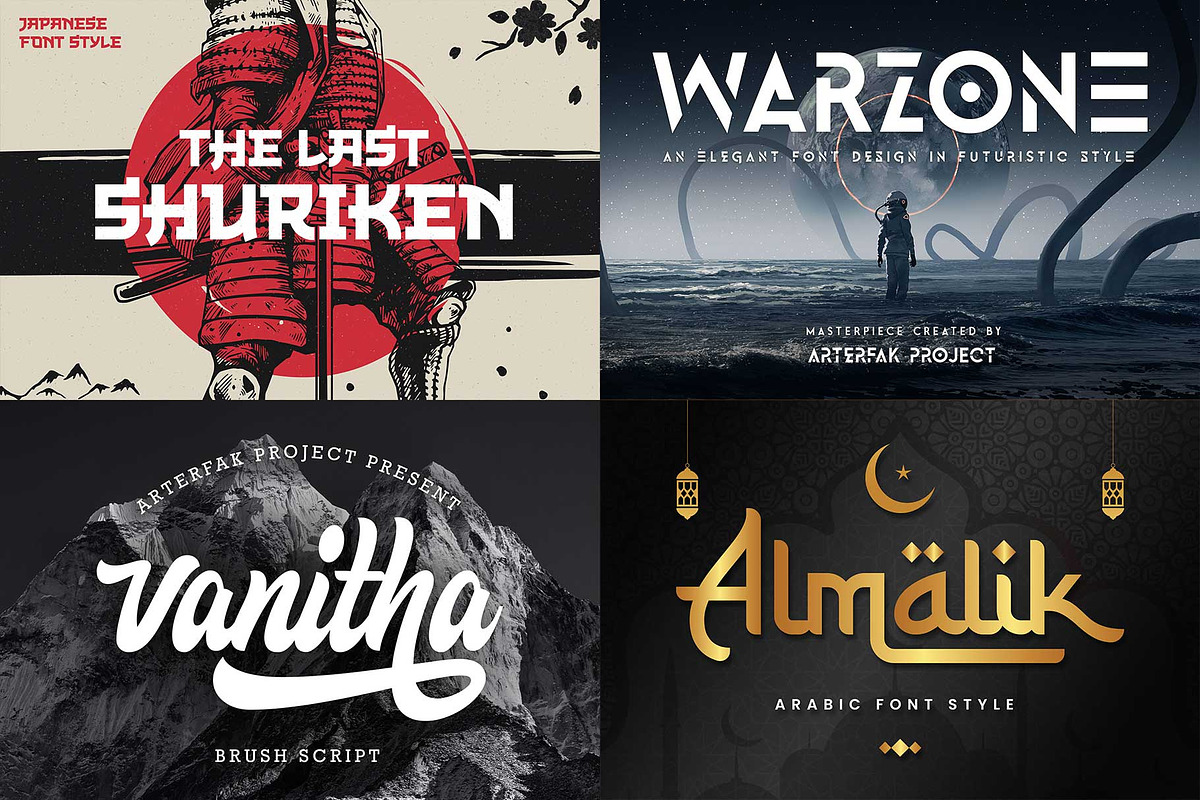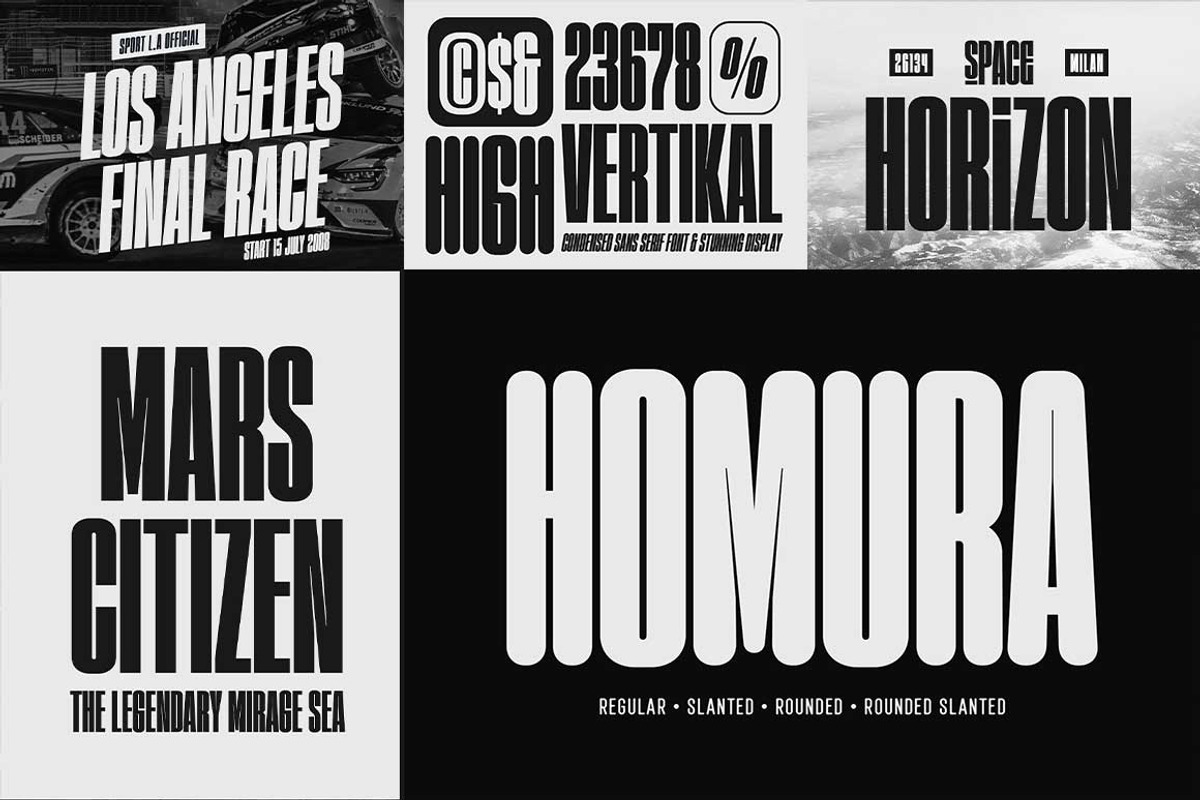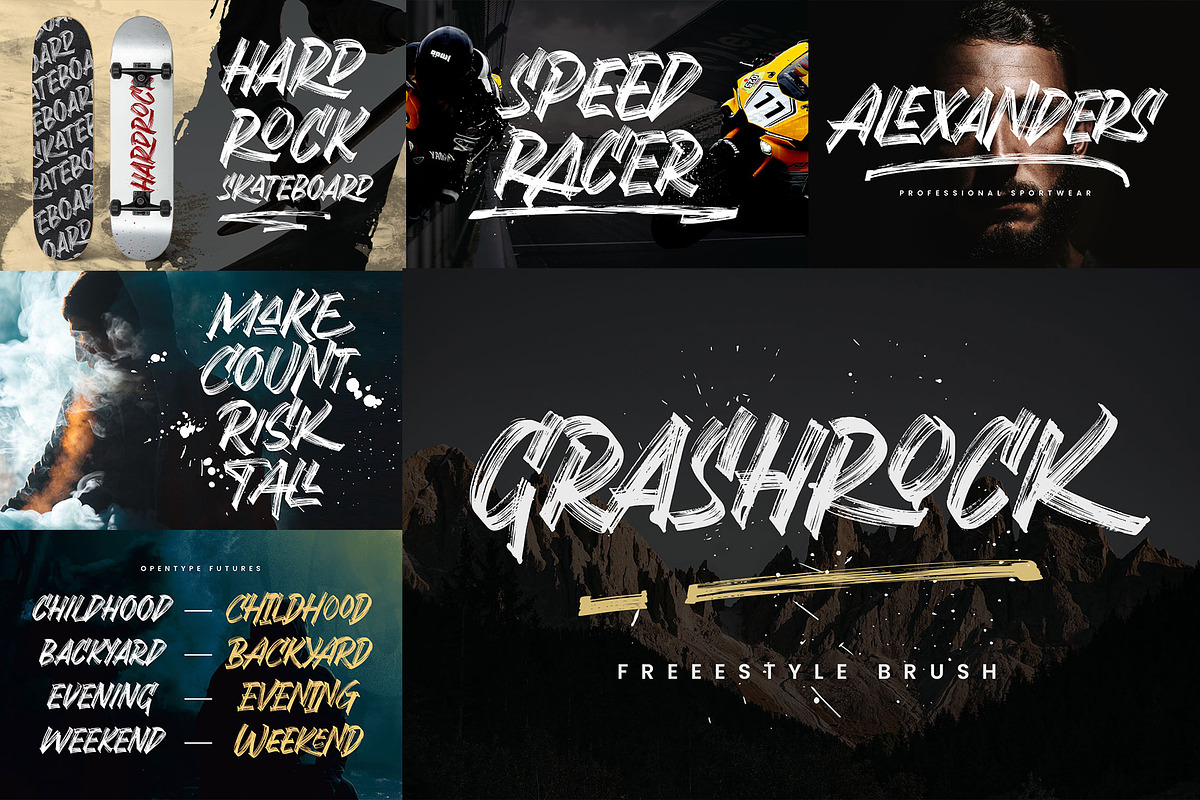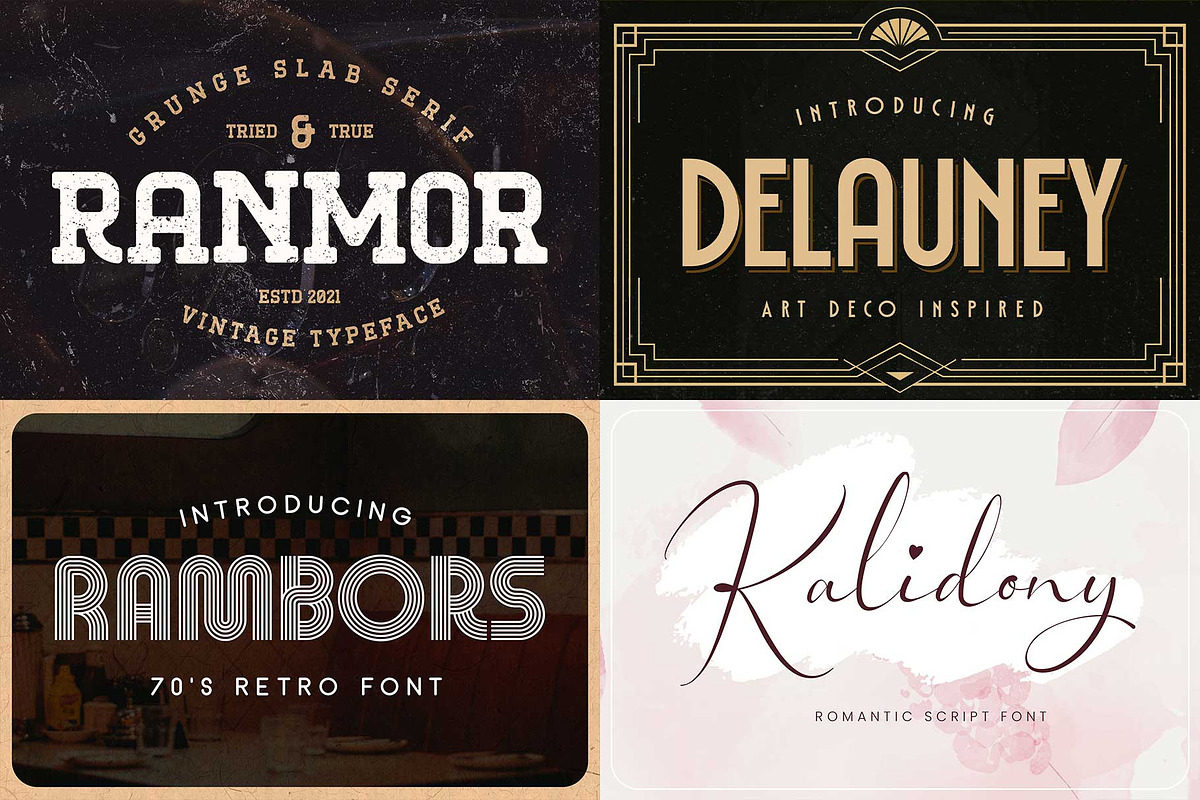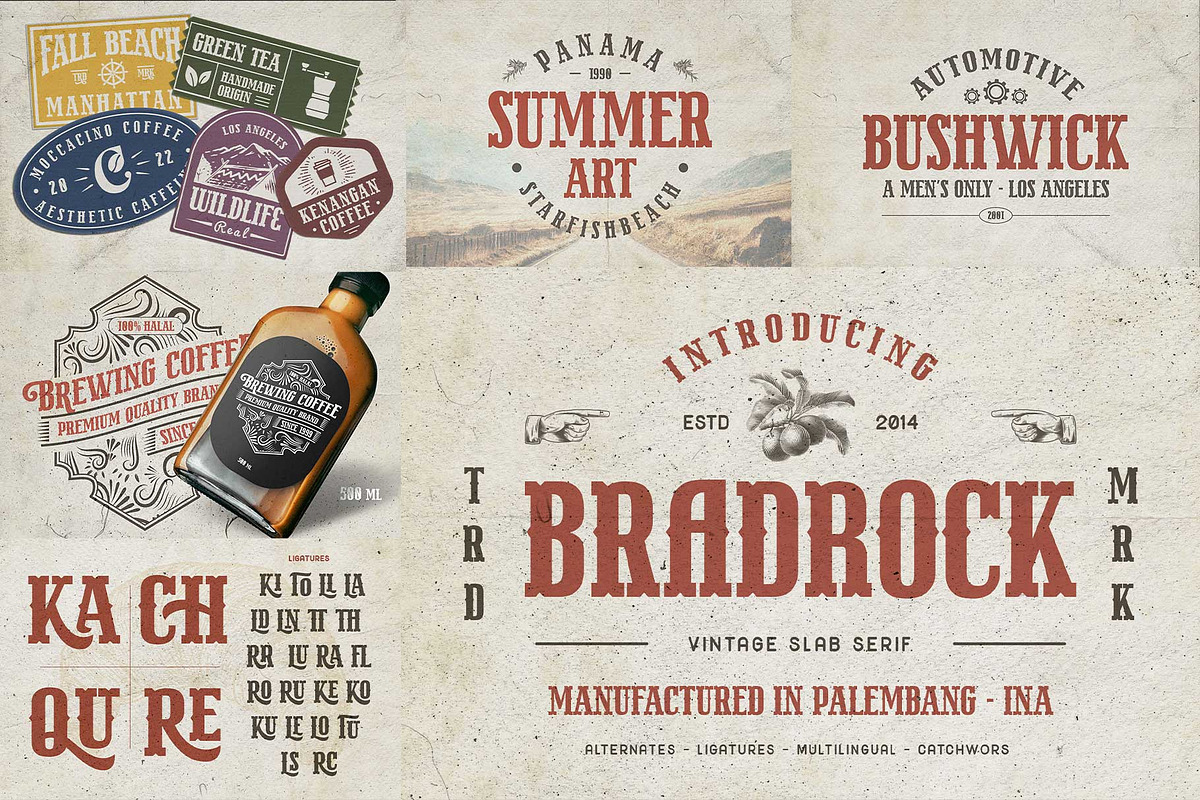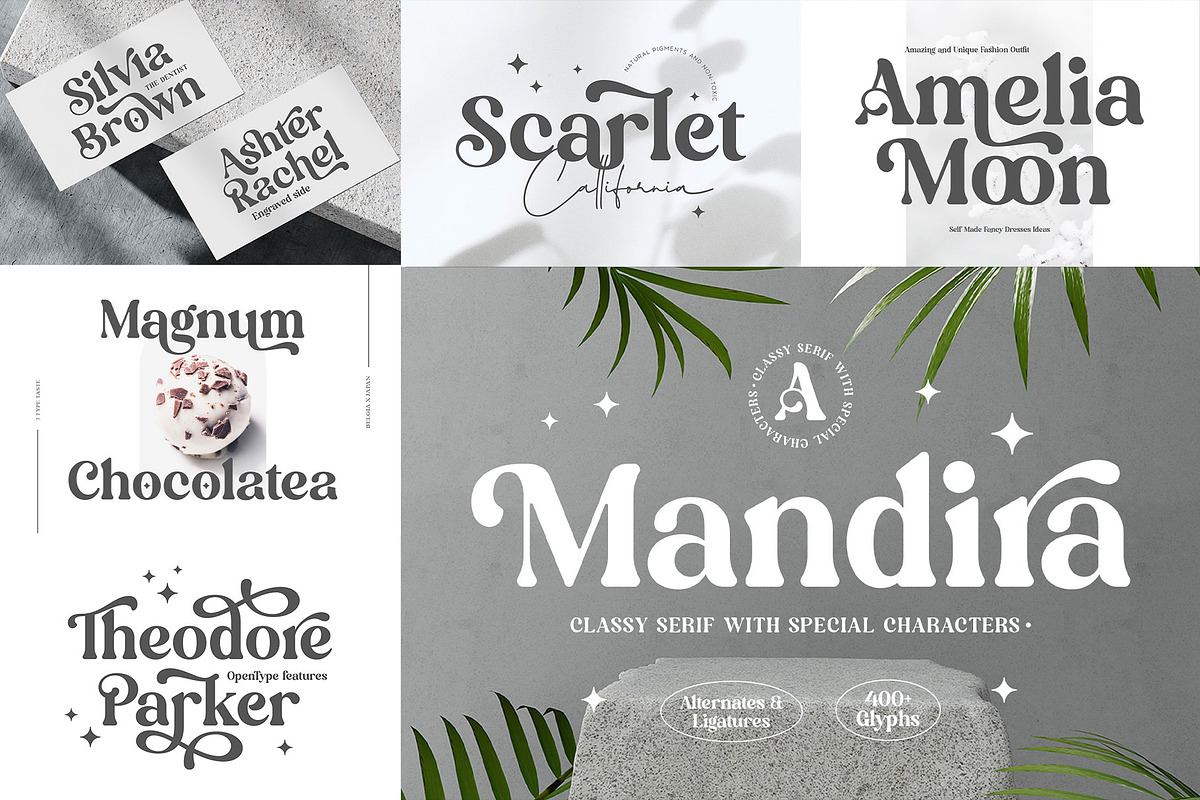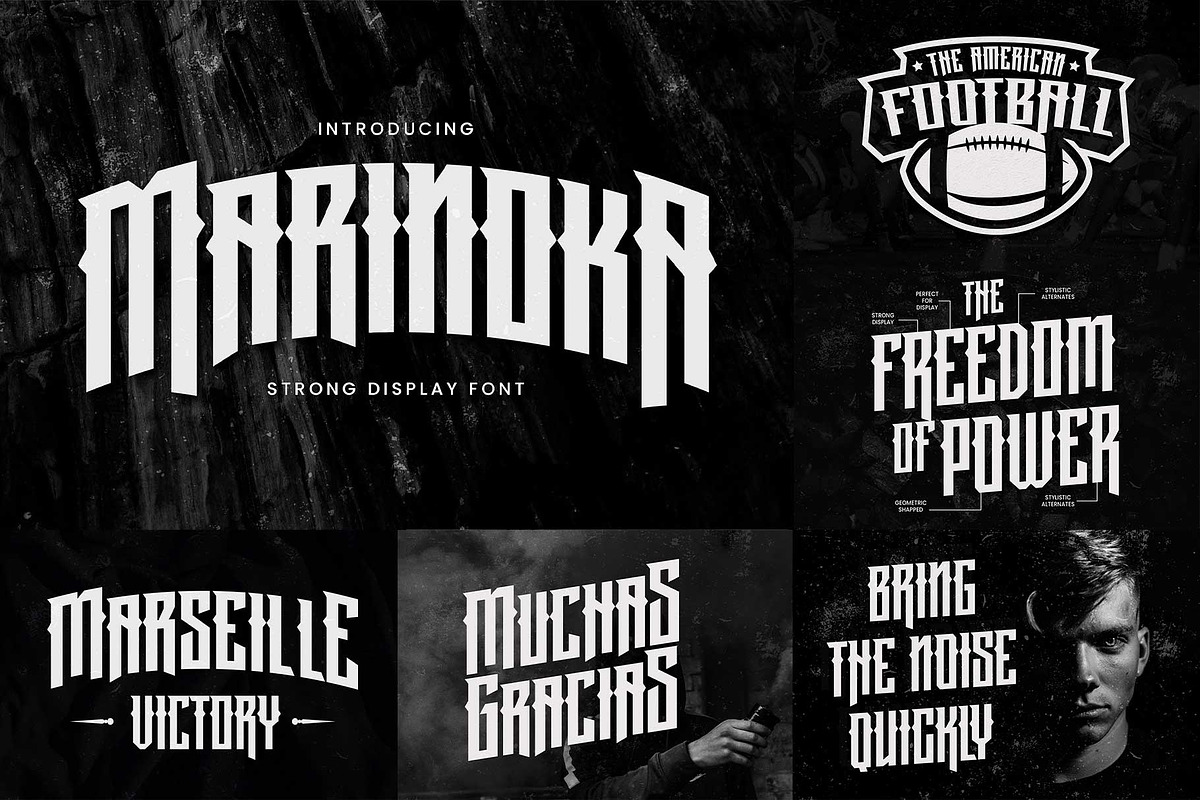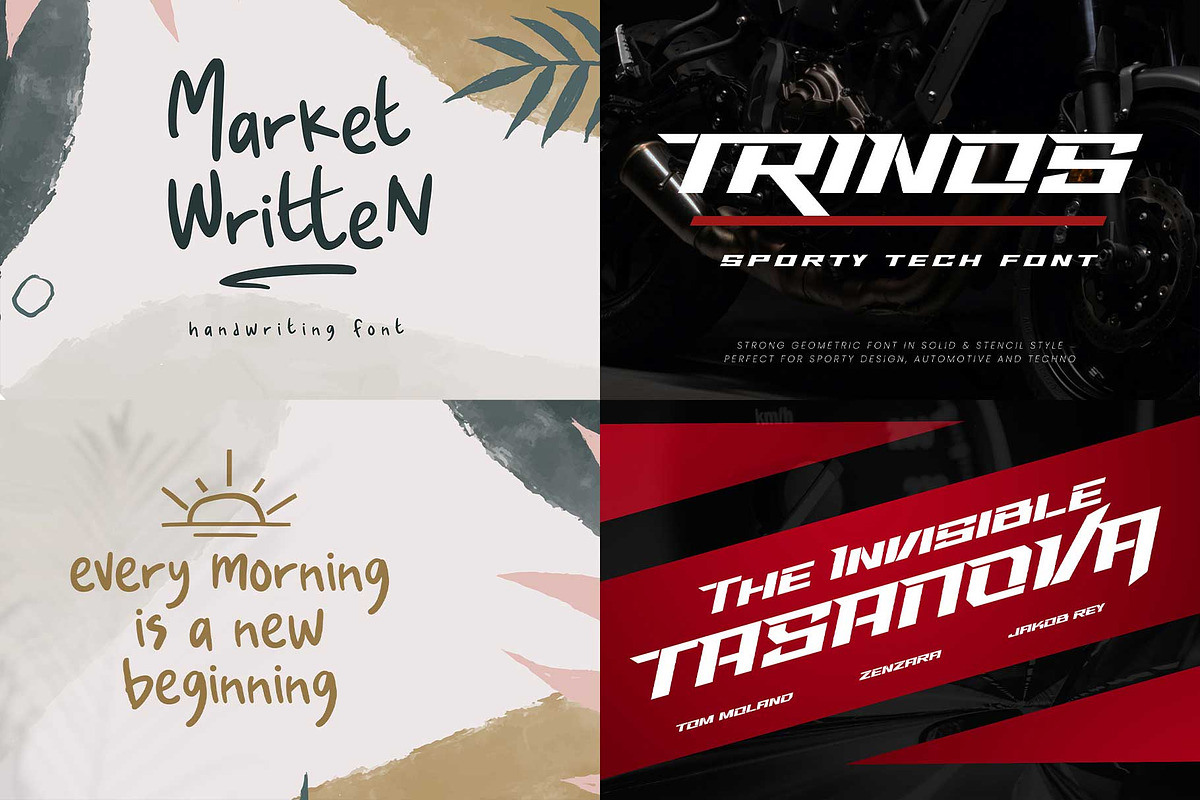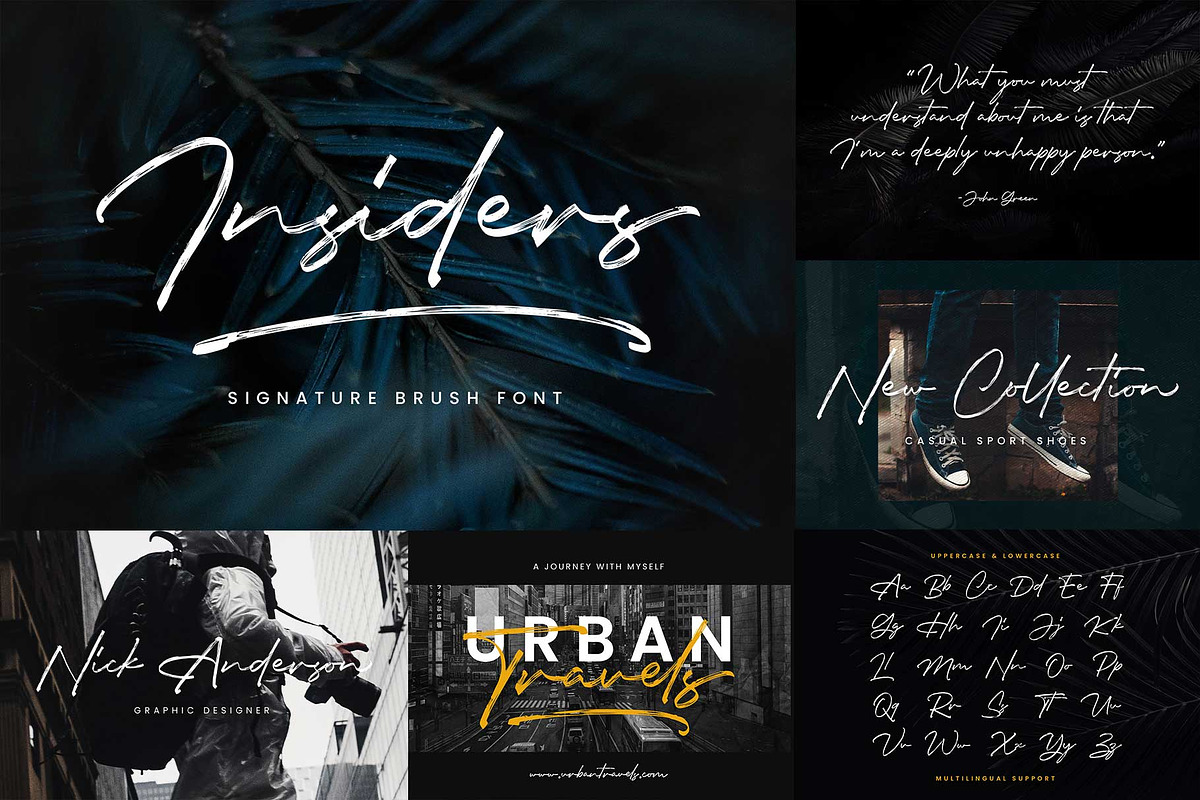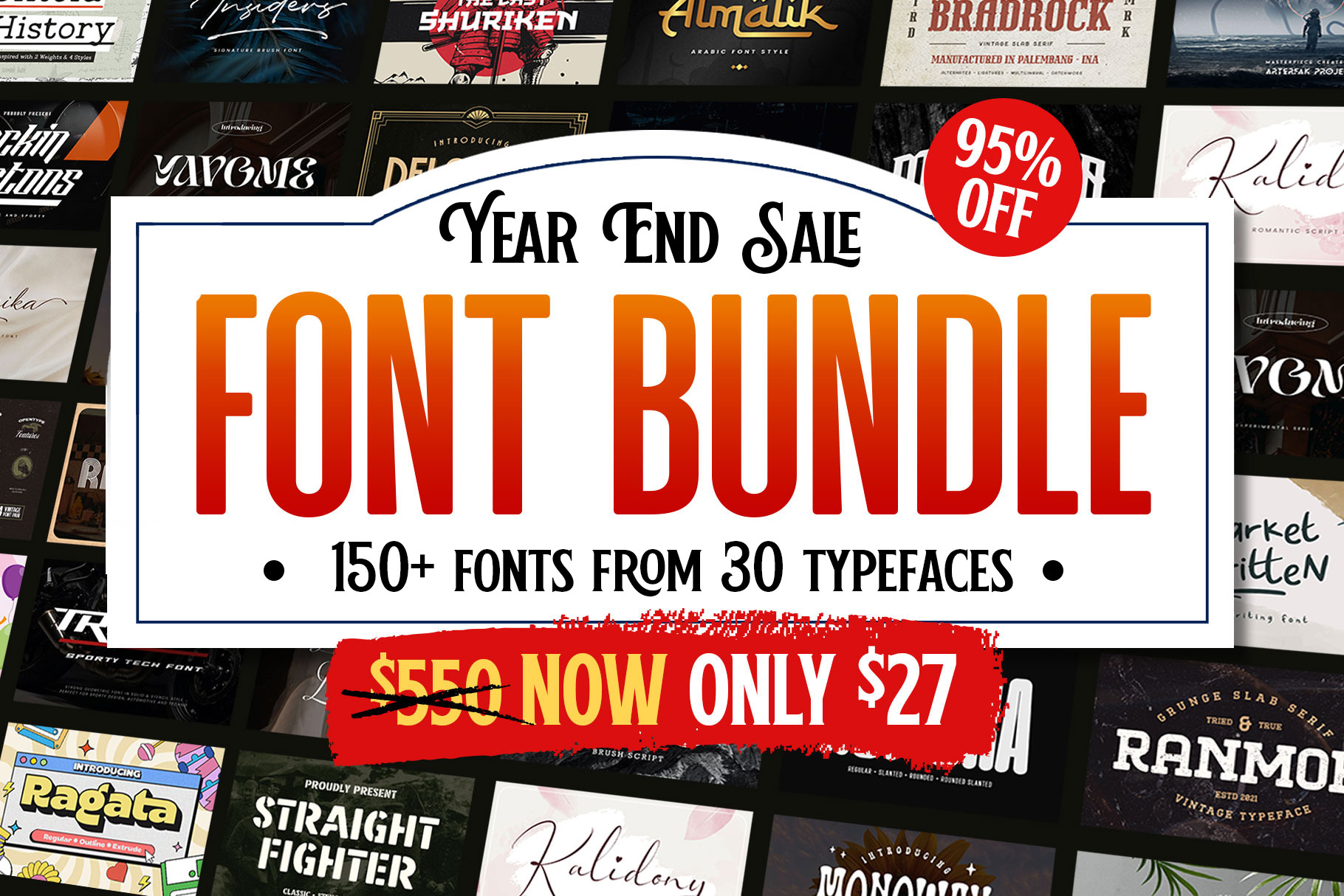
Massive Year-End Font Bundle As we wrap up another incredible year of creativity, we’re thrilled to bring you our biggest font collection ever — 150+ unique fonts from 30 premium typefaces!
Packed with a diverse range of styles — from bold brush and elegant script to futuristic, vintage, rustic, and modern classics — this bundle has everything you need to supercharge your creative projects.
Each font is carefully crafted and fully equipped with special characters, ligatures, and multilingual support, making them versatile for any kind of design. Perfect for logos, branding, posters, apparel, packaging, invitations, signage, and more, this collection is your all-in-one design arsenal.
Fonts included :